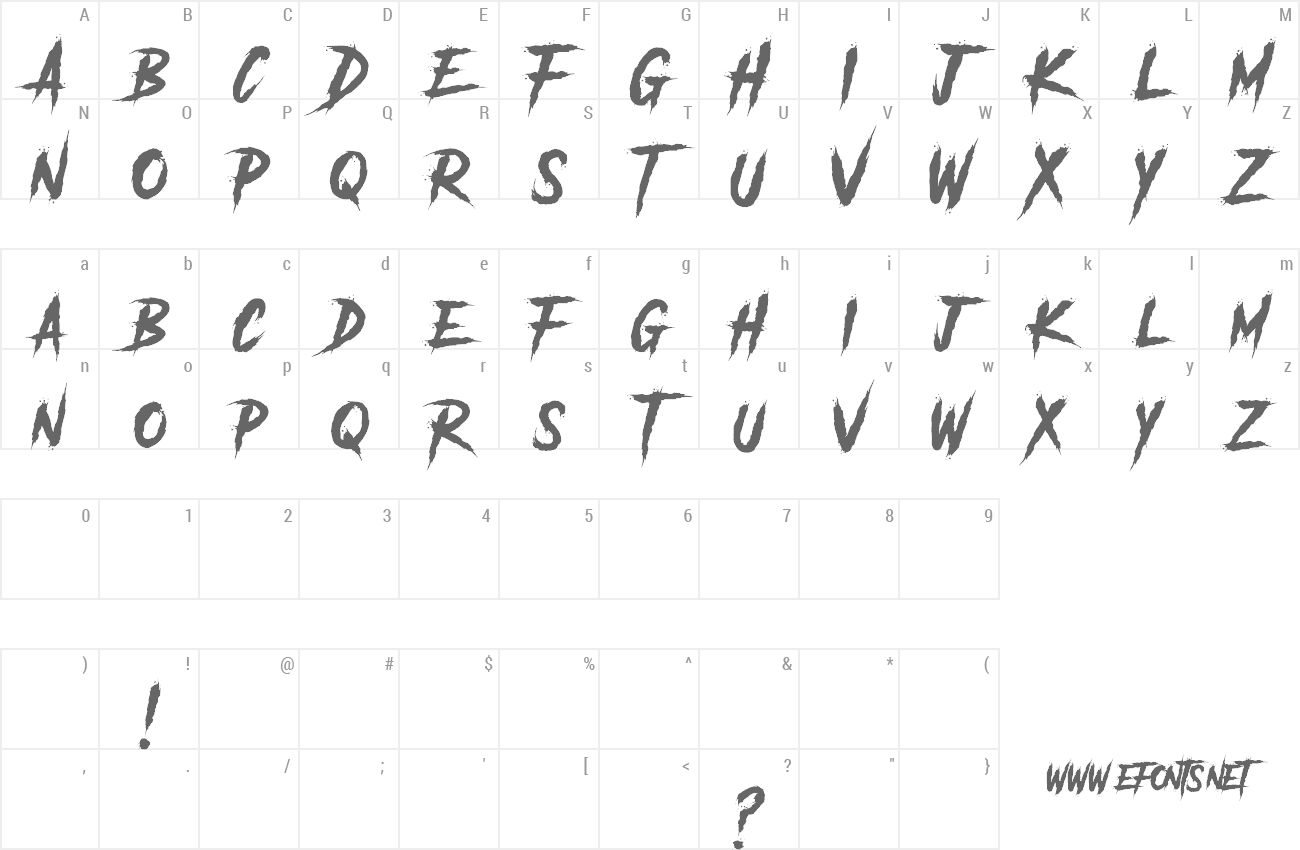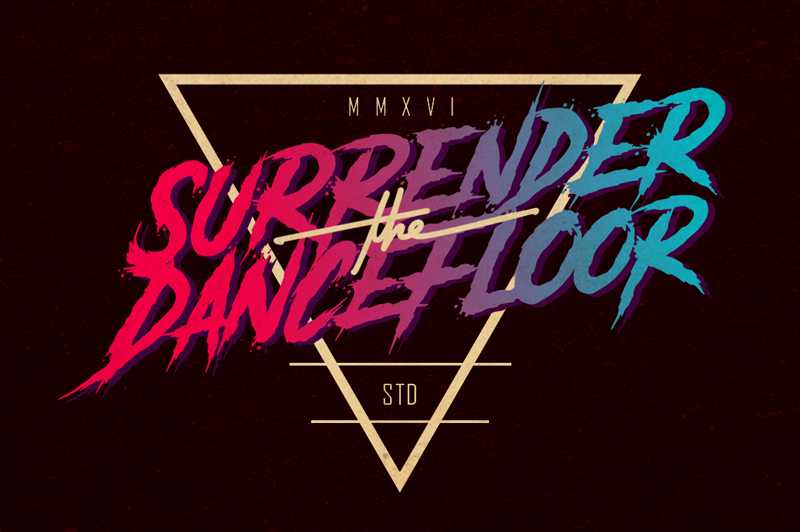
Free download Another Danger Font
Preview and download Another Danger Font. Created by The Branded Quotes in Fancy Horror styles with Demo license.
We accept Mobile Legends Skins/Diamond donation. IGN: Kapitan Catingkoy ID: 71498832(3218) Each donation allows you to use this specific font for commercial projects Purchase the full font here: https://sellfy.com/p/lEZ5/ Which includes the license for Commercial Use. About this font: The kind of typeface that proves its usefulness from time to time. With unruly inks delivered to every glyph produces the enigma to it. Bring in the hardcore vibe, the retro feel, the artworks of chaos. Splatter your creativity with Another Danger! |